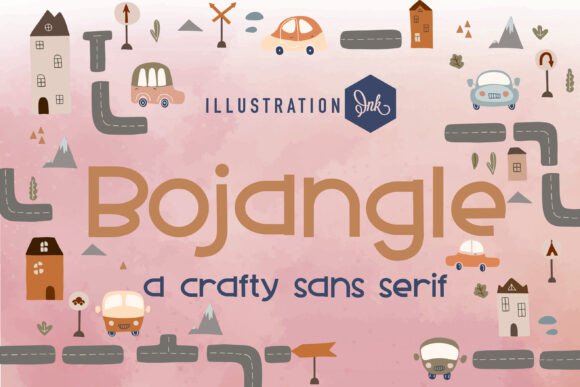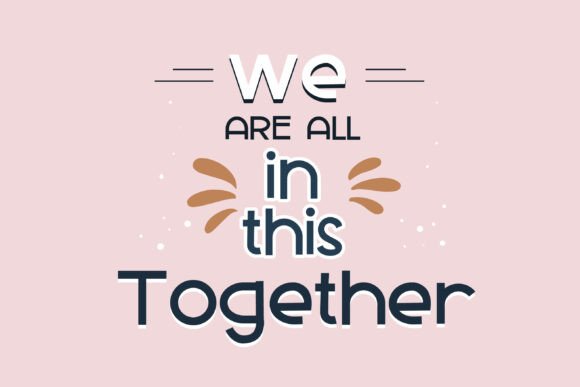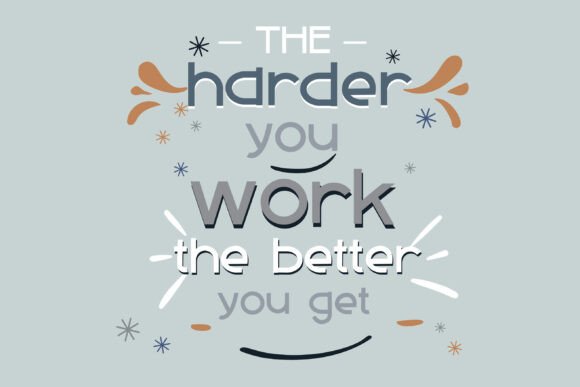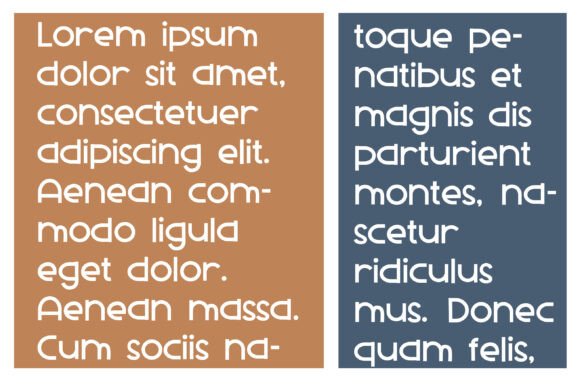
Bojangle Font: A Playful Sans Serif for Cute & Creative Designs!
About the Bojangle Font
Crafted with precision, the Bojangle Font is ready to bring your ideas to life. This hand-crafted sans serif is squatty and a bit wide.
Light version included.
Bojangle’s squat, wide form makes it ideal for headlines, short impactful titles, and branding elements where a friendly, approachable yet bold statement is needed. It works exceptionally well on packaging for artisanal goods or products targeting a younger demographic. Avoid using it for body text or lengthy paragraphs; its unique character is best showcased in shorter bursts.
Consider pairing Bojangle with a clean, geometric sans-serif like Futura for a modern contrast, or a classic serif like Garamond for a touch of refined elegance. For a more playful feel, a script font with a similar weight could create a fun, hand-crafted aesthetic.
Bojangle projects a personality that is simultaneously bold and approachable—friendly without being childish, and memorable without being overwhelming. Its hand-crafted origins lend an authentic, slightly informal feel, perfect for brands emphasizing quality and personality.
Bojangle Font Usage Examples
Bojangle Font Example